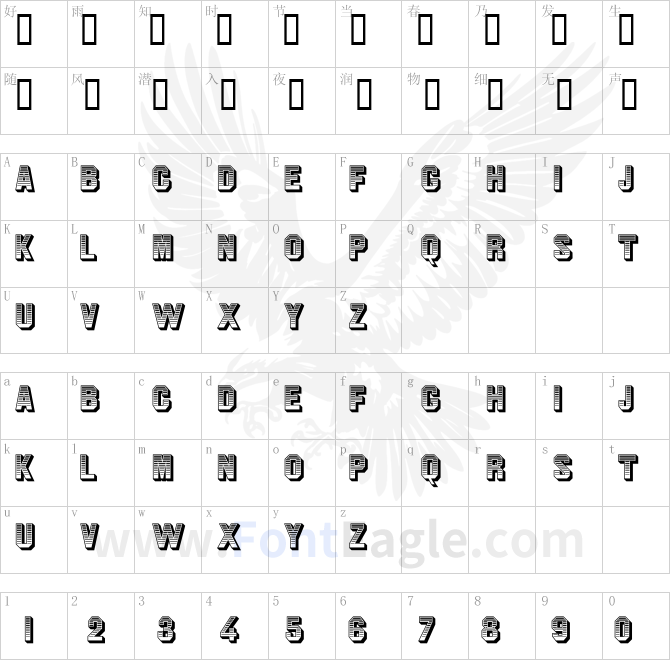
- Font name:Jim Dandy
- Font Full Name:Jim Dandy
- Font Copyright:JIM DANDY computer fonts v1.0 © 2004 Harold Lohner • HLohner@aol.com • www.haroldsfonts.com Based on a 19th‐century font, “Jim Crow”